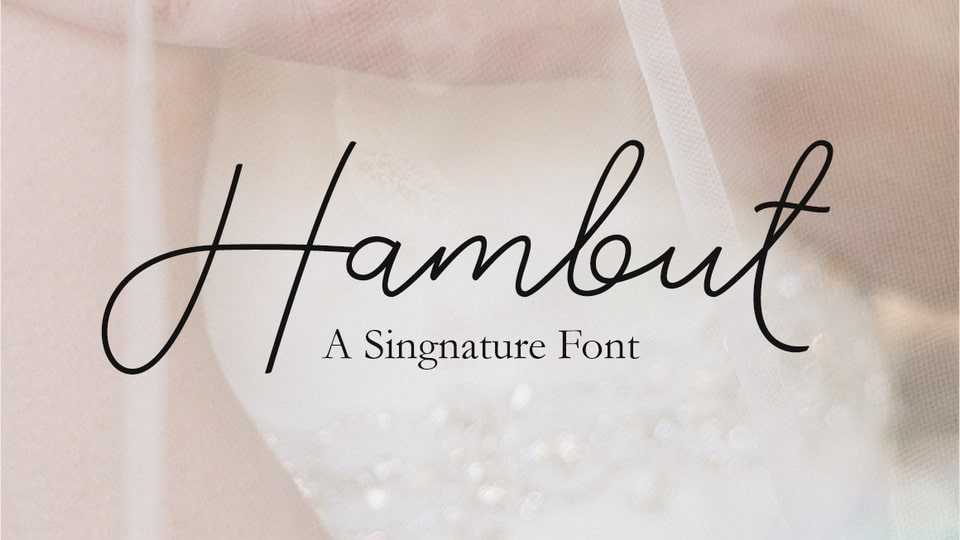
Hambut Font › Fontesk – Fonte Grátis
Download Hambut font, a handwritten typeface that includes lots of cute dingbats to decorate your quotes, social media posts, greeting cards, etc.